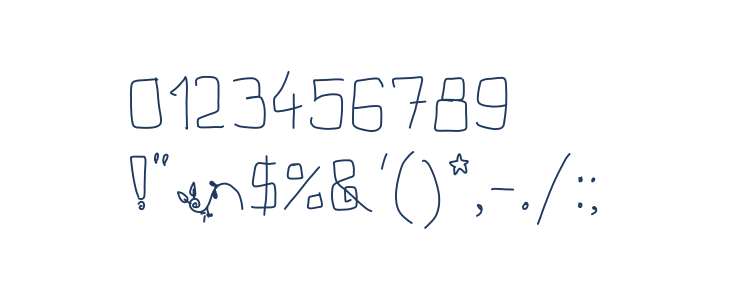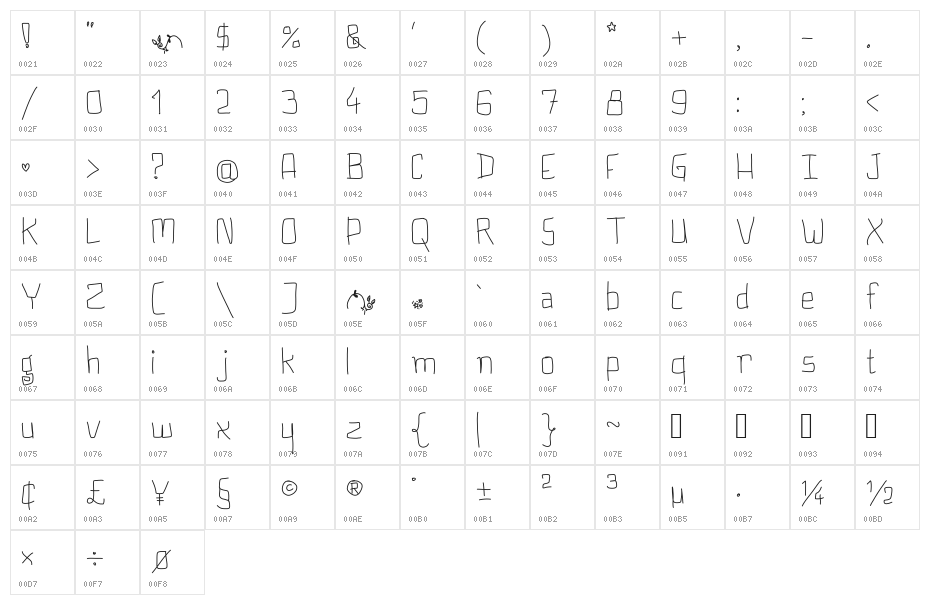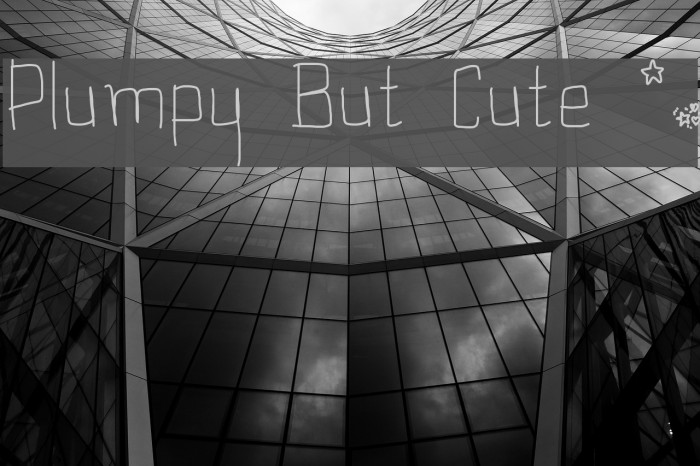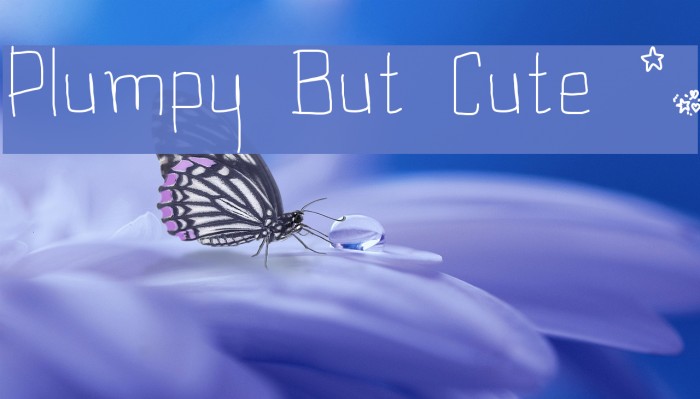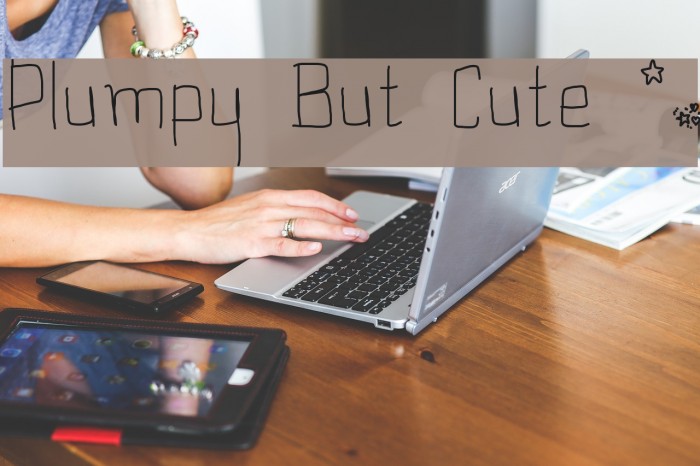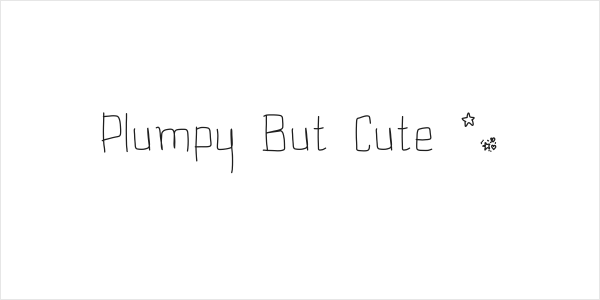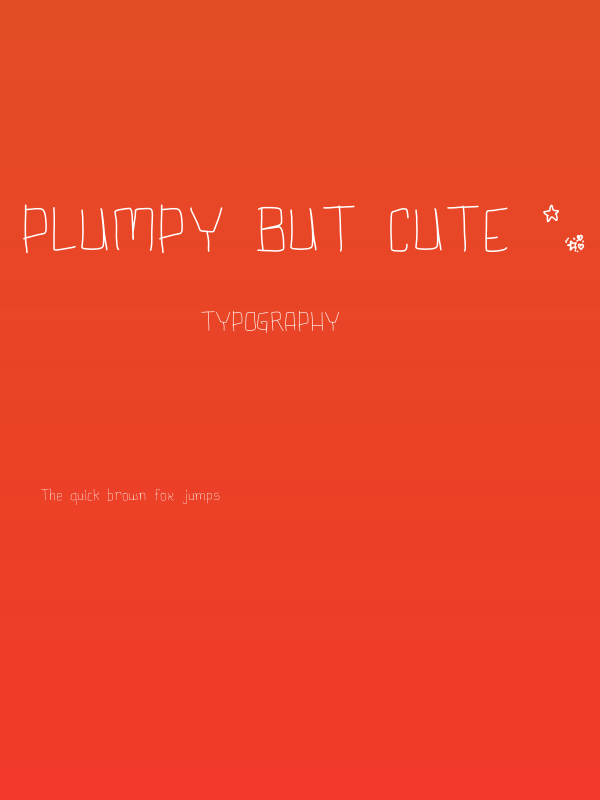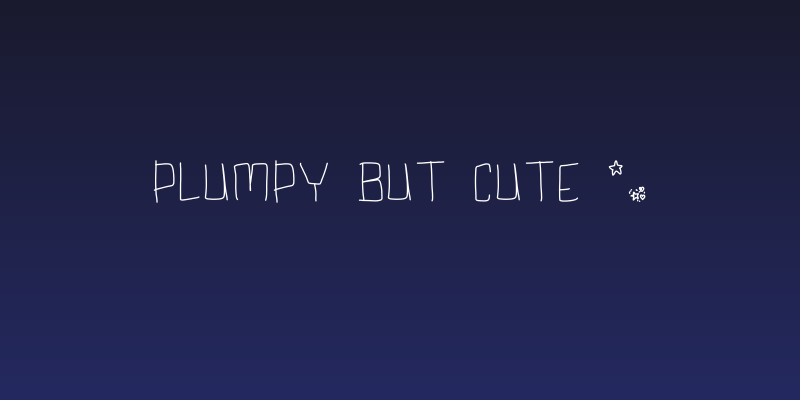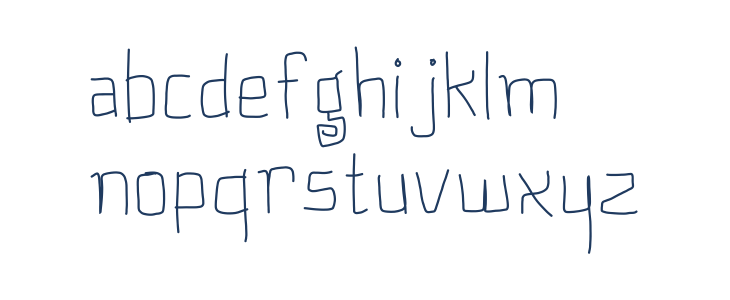
Plumpy But Cute *_ Font
Plumpy But Cute *_ Description
This playful and whimsical font features a hand-drawn aesthetic with irregular, slightly wavy lines that give it a charming and informal appearance. The characters are tall and narrow, with a consistent stroke width that maintains a uniform look across both uppercase and lowercase letters. The numerals and special characters follow the same quirky style, adding to the font's overall cohesive feel. The font's unique personality makes it ideal for projects that require a touch of fun and creativity, such as children's books, playful branding, or casual invitations.
| Overall Style | Whimsical |
| Proposed Projects | Children's books, playful branding, casual invitations, creative posters. |